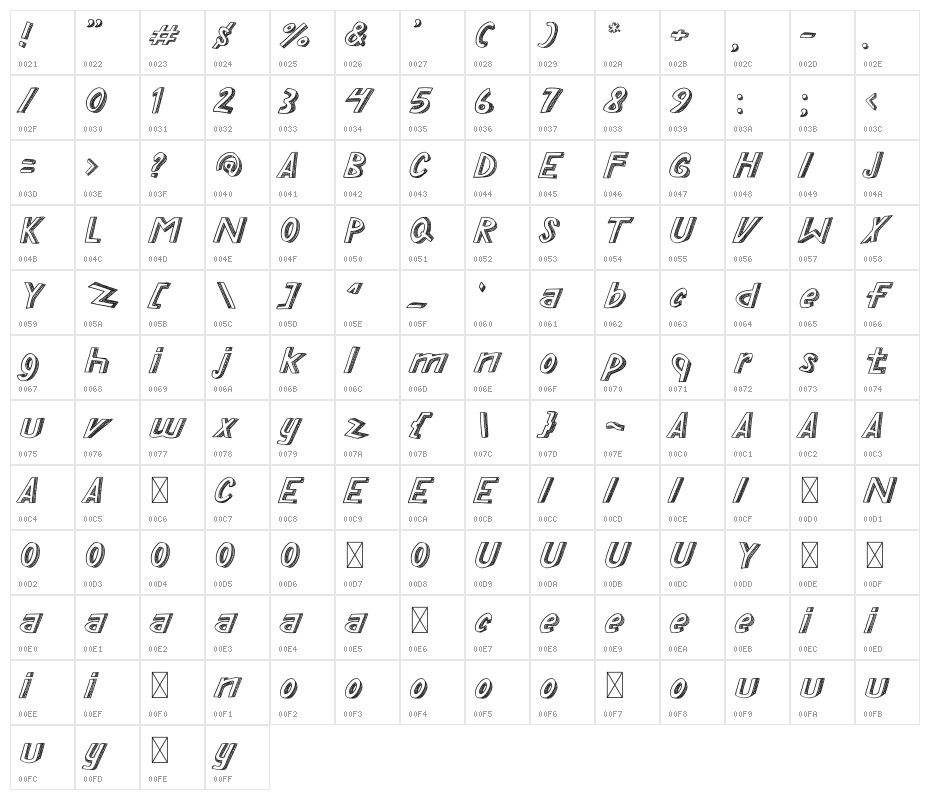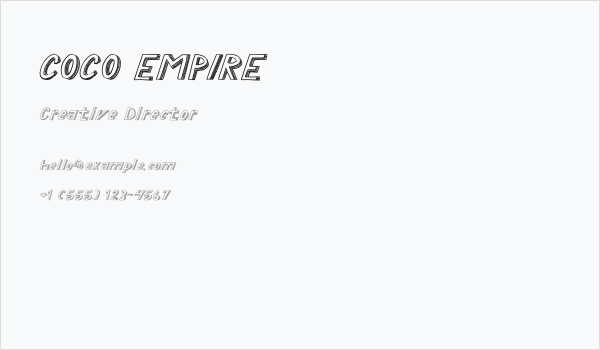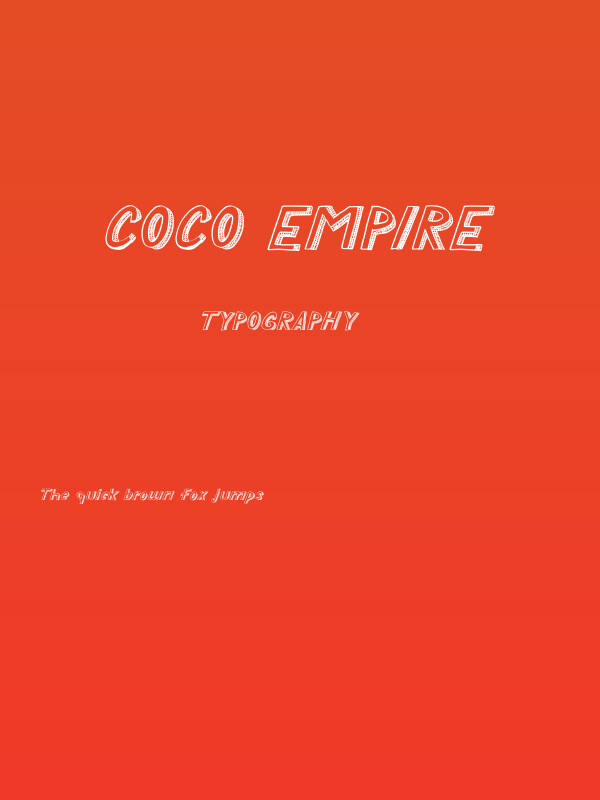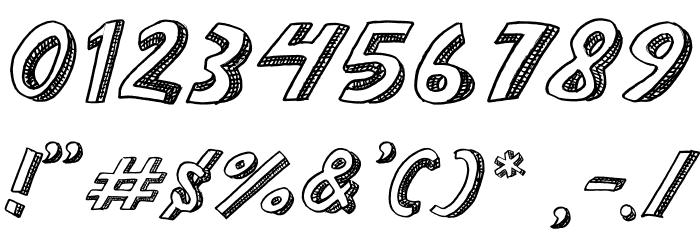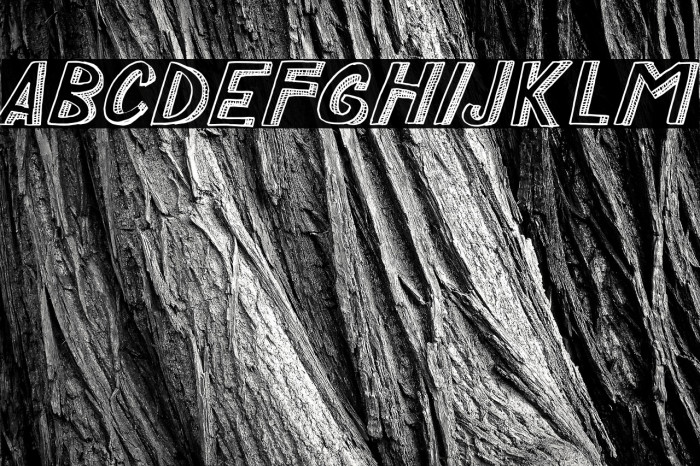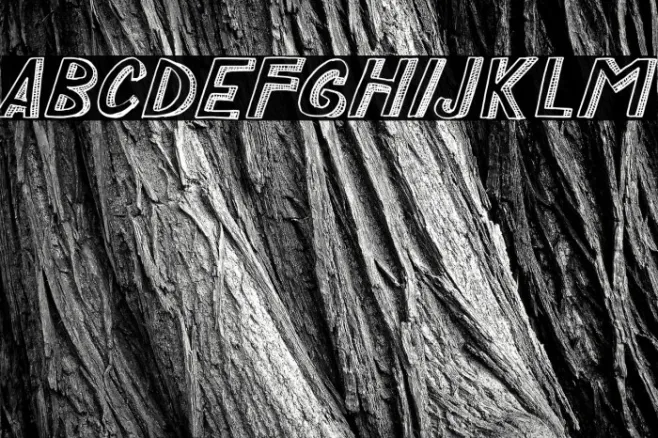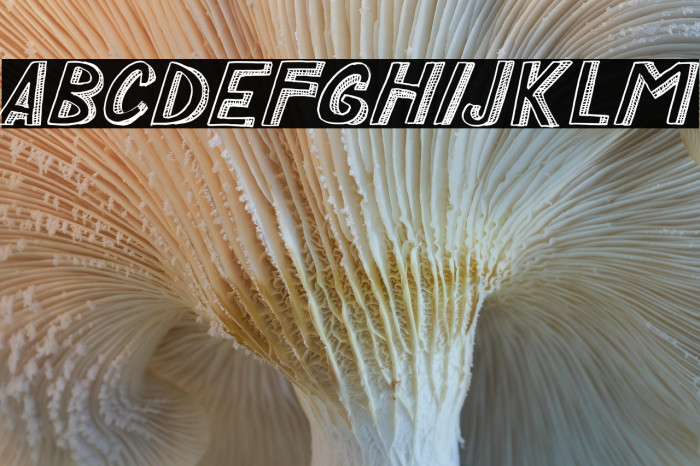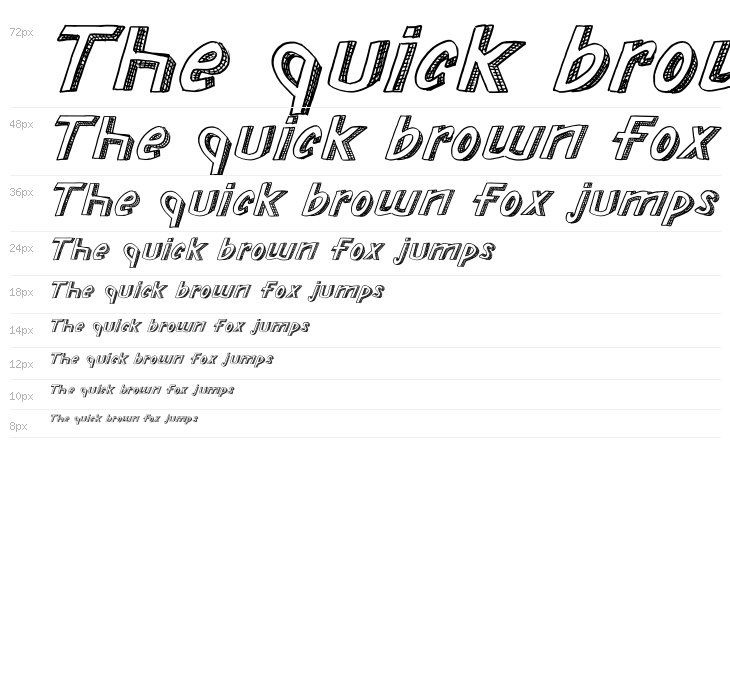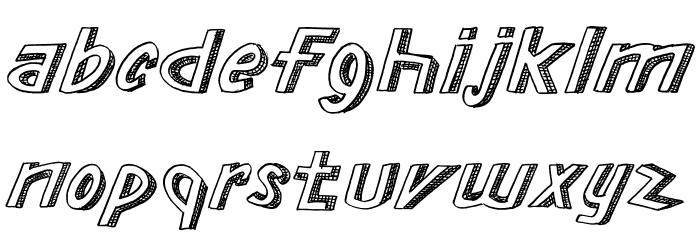
COCO EMPIRE Font
COCO EMPIRE Description
This font features a playful and dynamic style with a three-dimensional effect created by its shadowed outline. The characters are bold and slightly slanted, giving them a sense of movement and energy. The uppercase and lowercase letters maintain a consistent design, with rounded edges and a hand-drawn appearance. Numbers and special characters follow the same aesthetic, ensuring uniformity across all glyphs. The font's unique pattern within each character adds a textured look, making it stand out in any design. Its whimsical and artistic nature makes it suitable for creative projects.
| Proposed Projects | Ideal for children's books, comic strips, playful branding, and creative posters. |